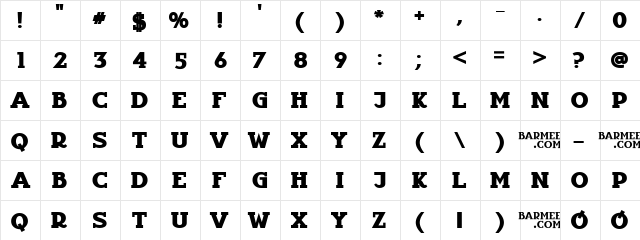
InfantylFat Regular Font Preview
InfantylFat Regular
Design Context for InfantylFat Typeface
InfantylFat offers clean, dependable letterforms without strong stylistic allegiance, making it a practical choice for designers who need flexibility.